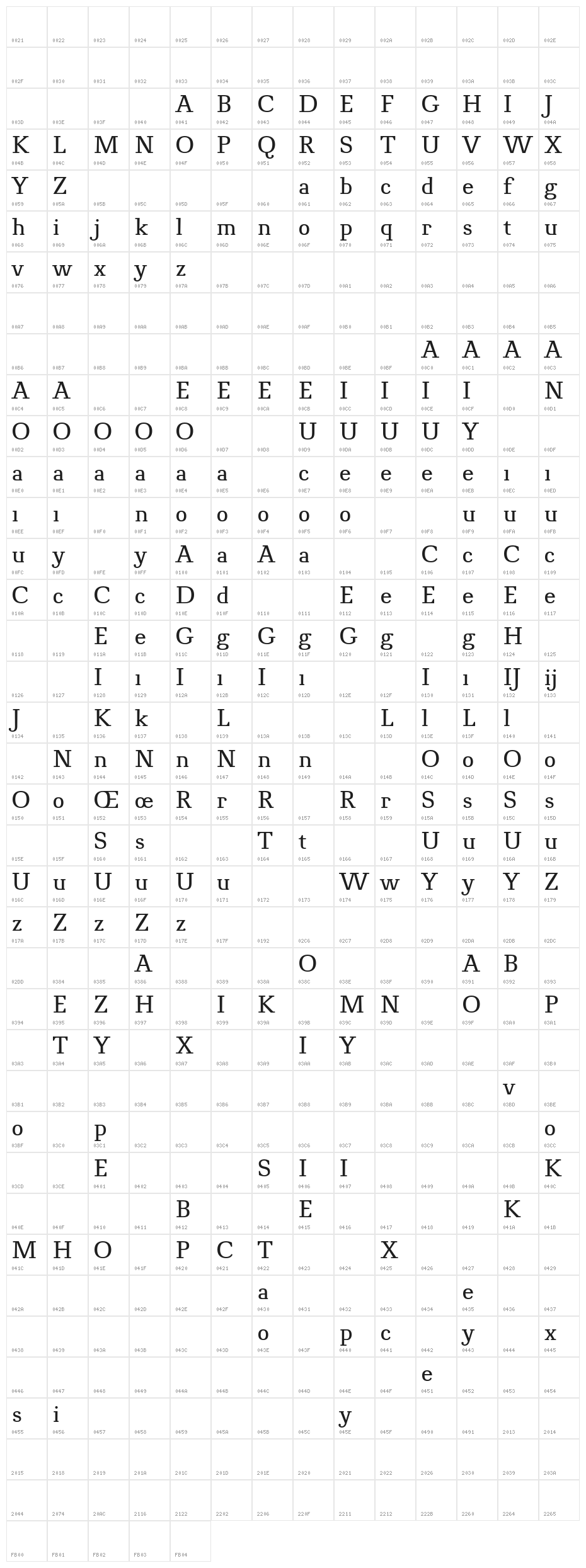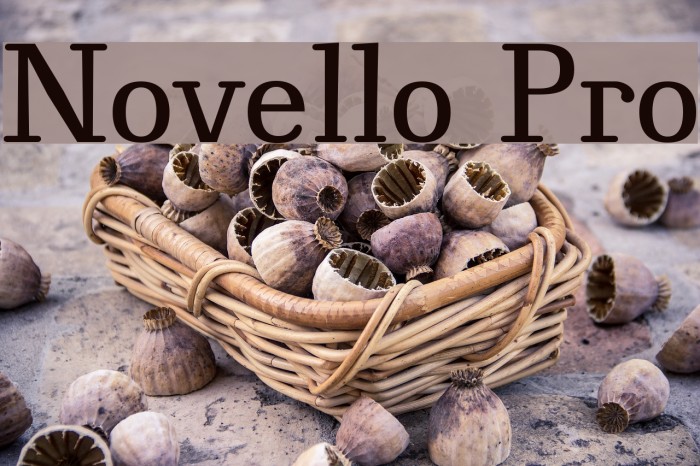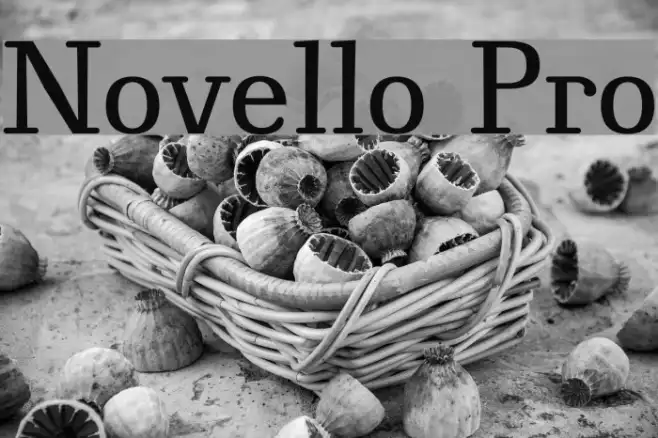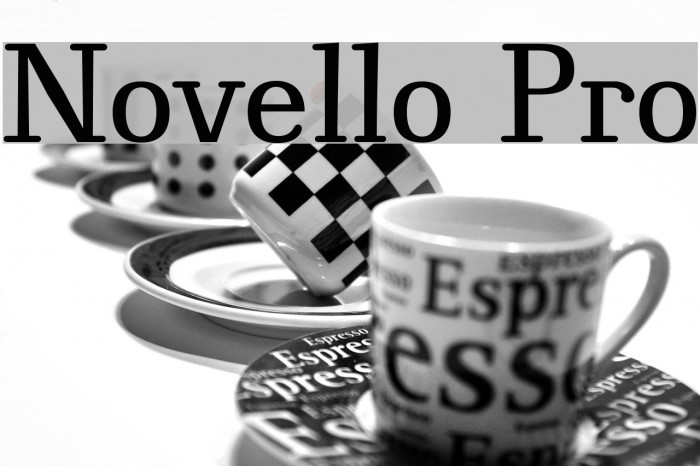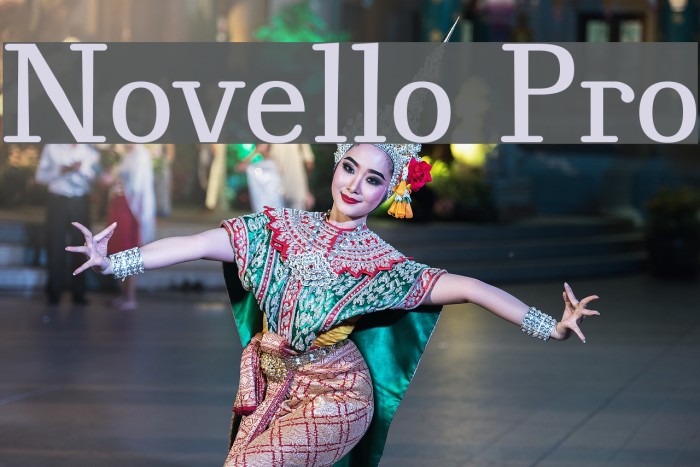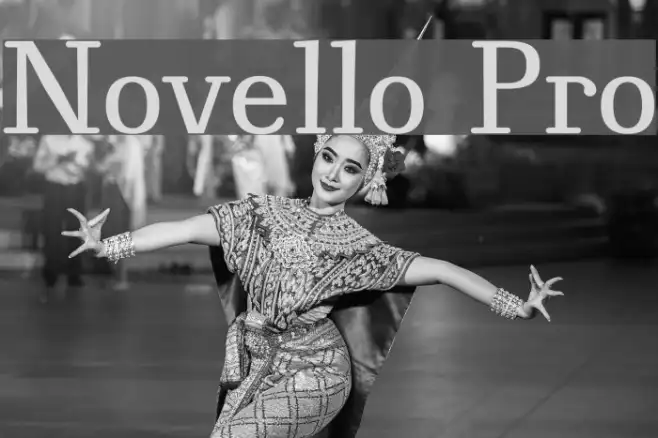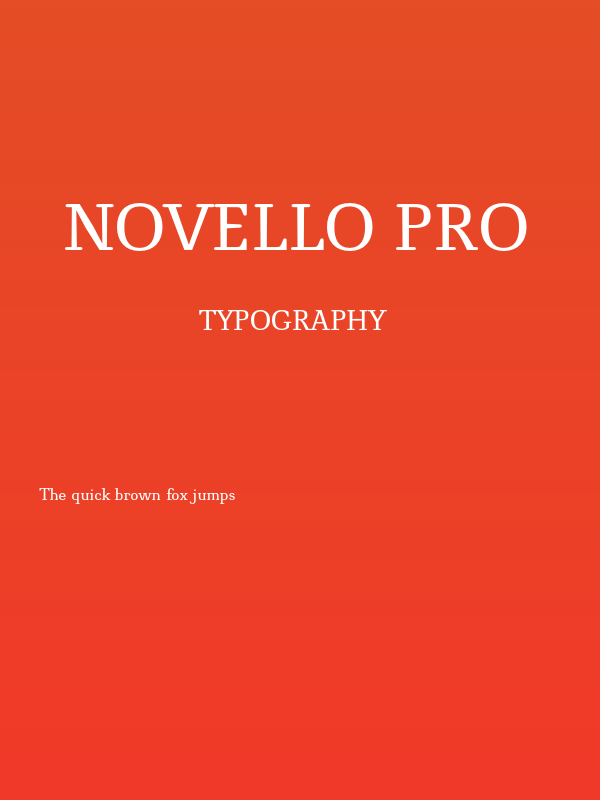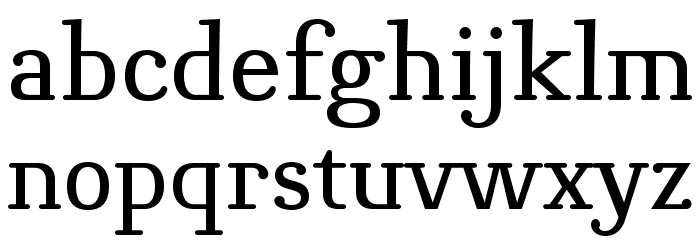
Novello Pro Font
Novello Pro Description
This font features a classic serif style with elegant and refined strokes. The uppercase letters are bold and commanding, while the lowercase letters maintain a balanced and harmonious appearance. The numerals are clear and distinct, making them easily readable. Special characters are thoughtfully designed, adding to the font's versatility. The overall design is timeless, suitable for a wide range of applications, from formal documents to creative projects.